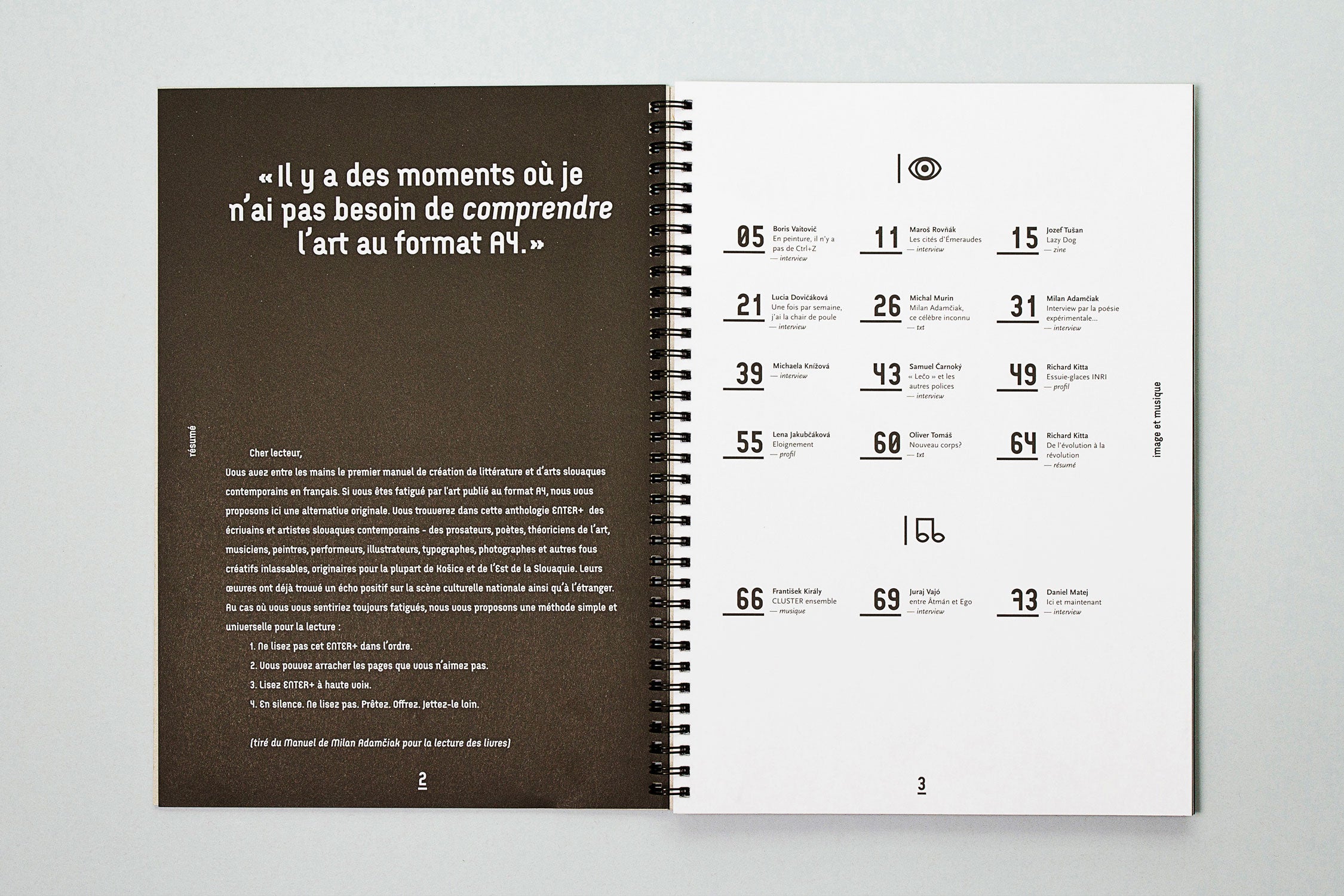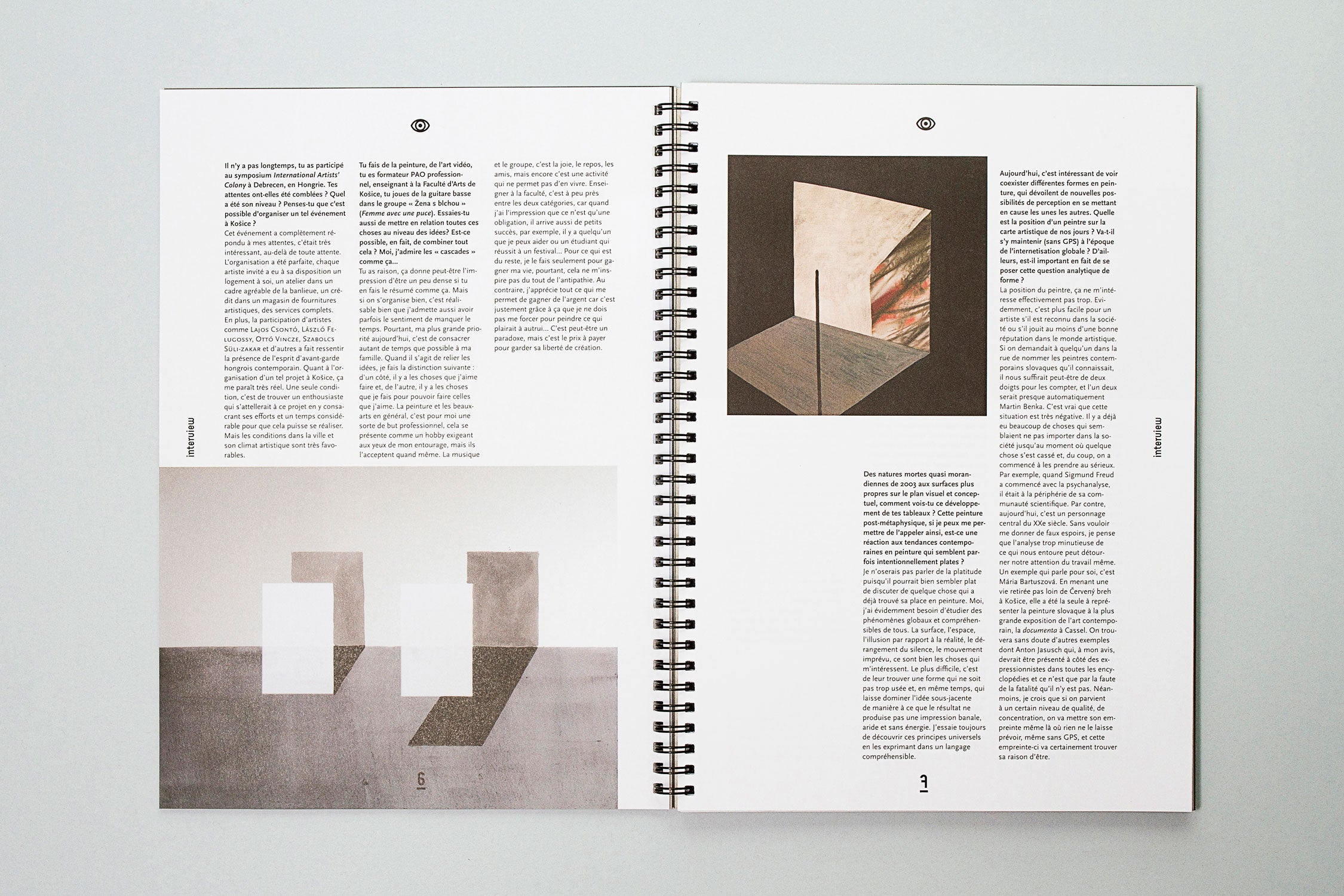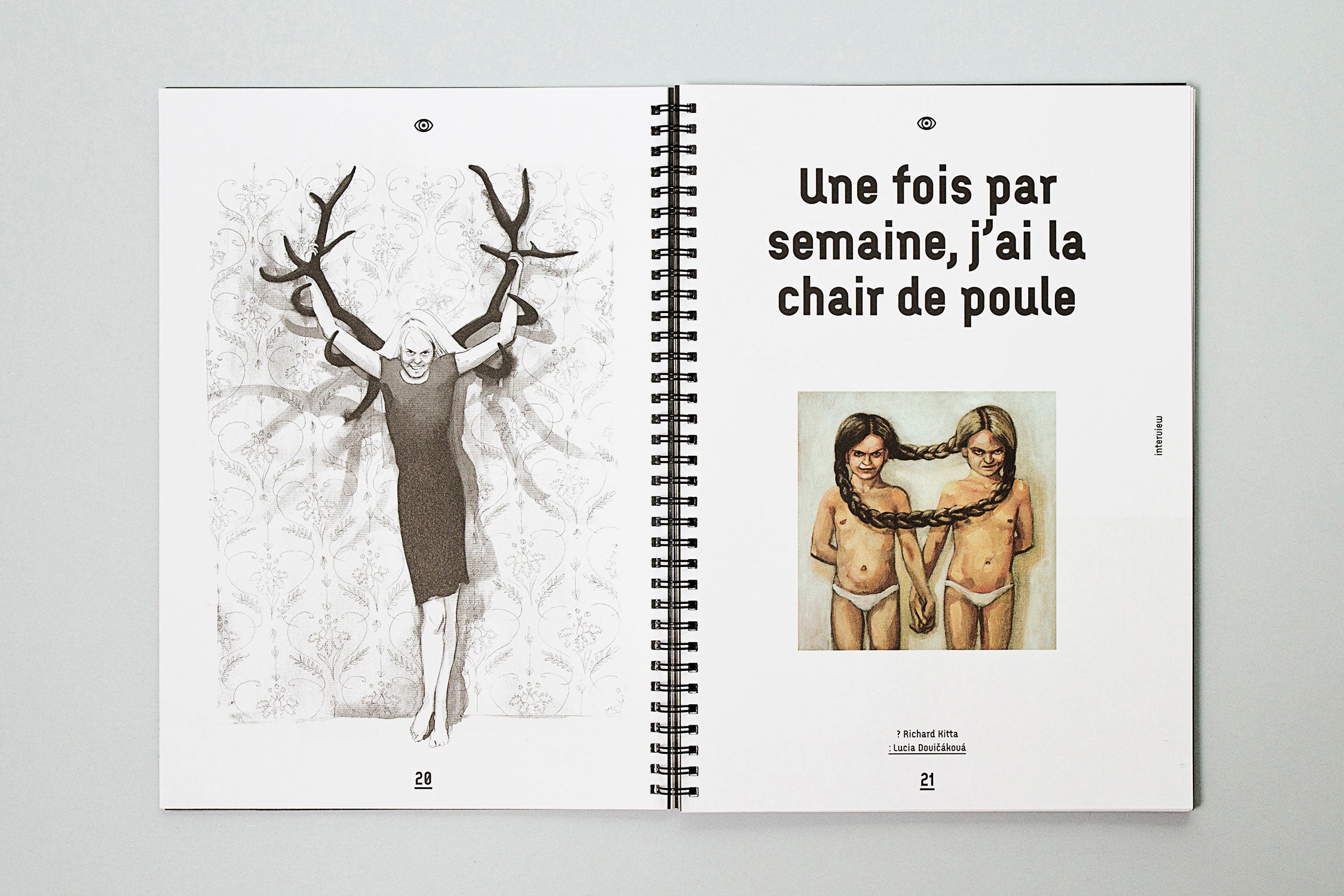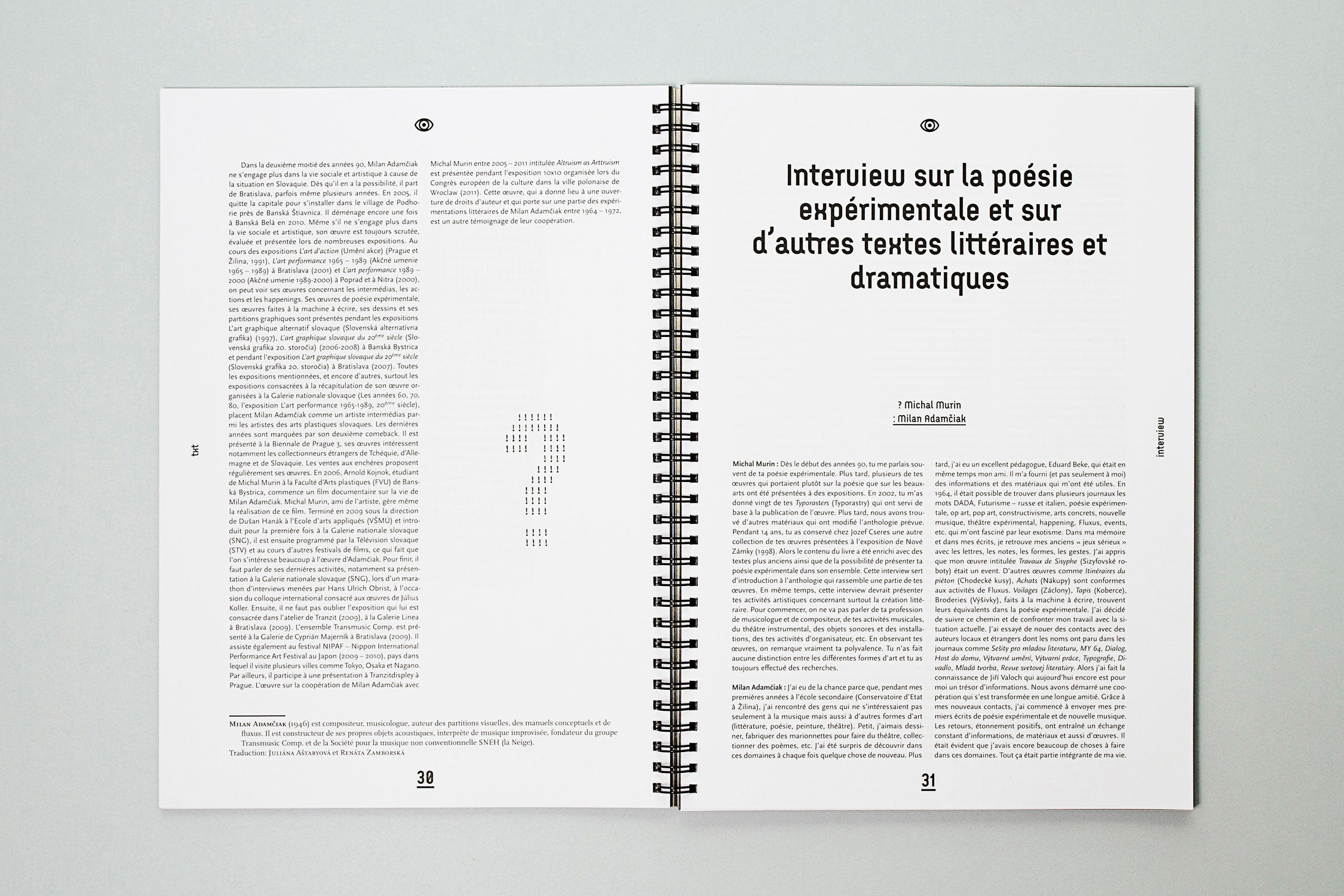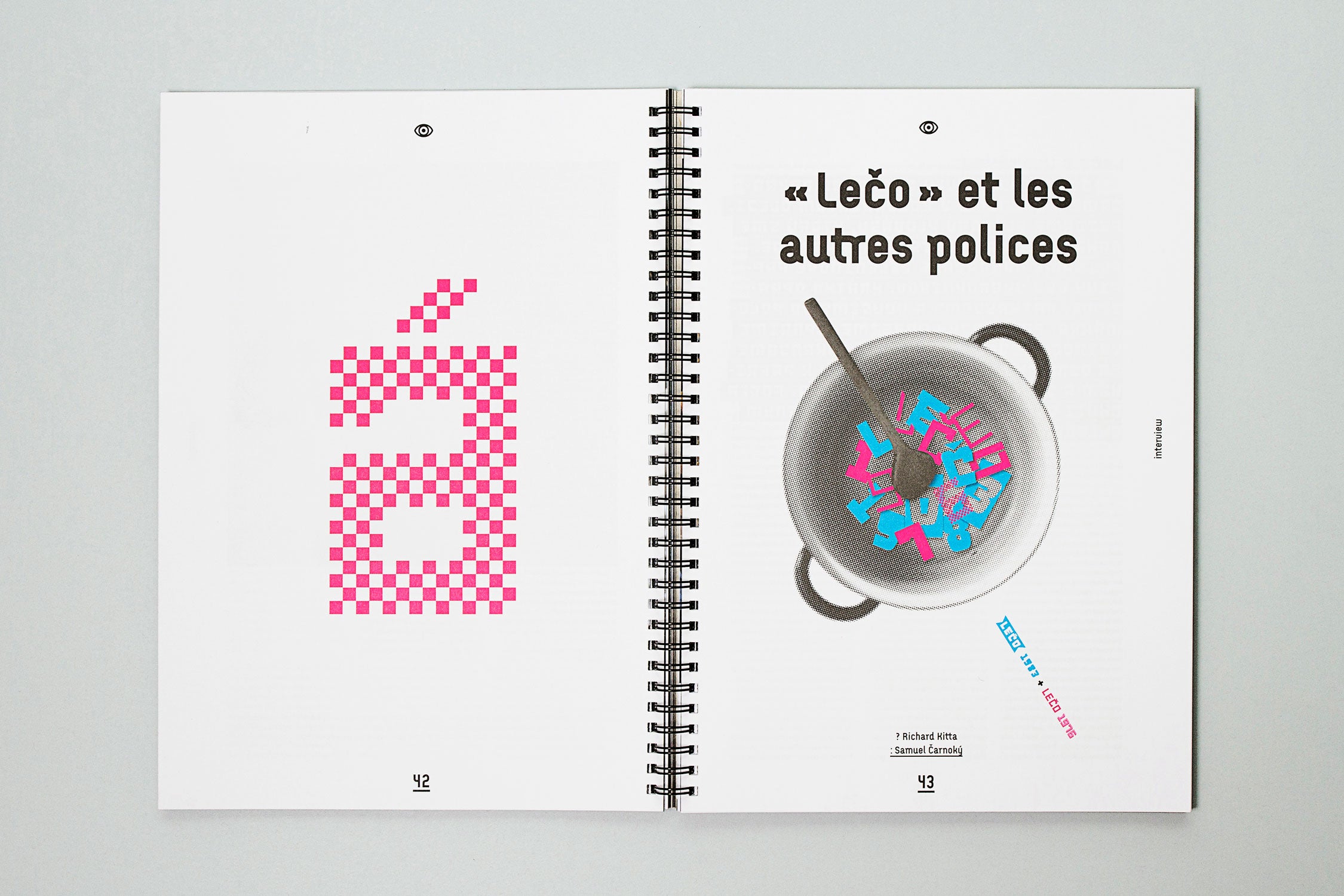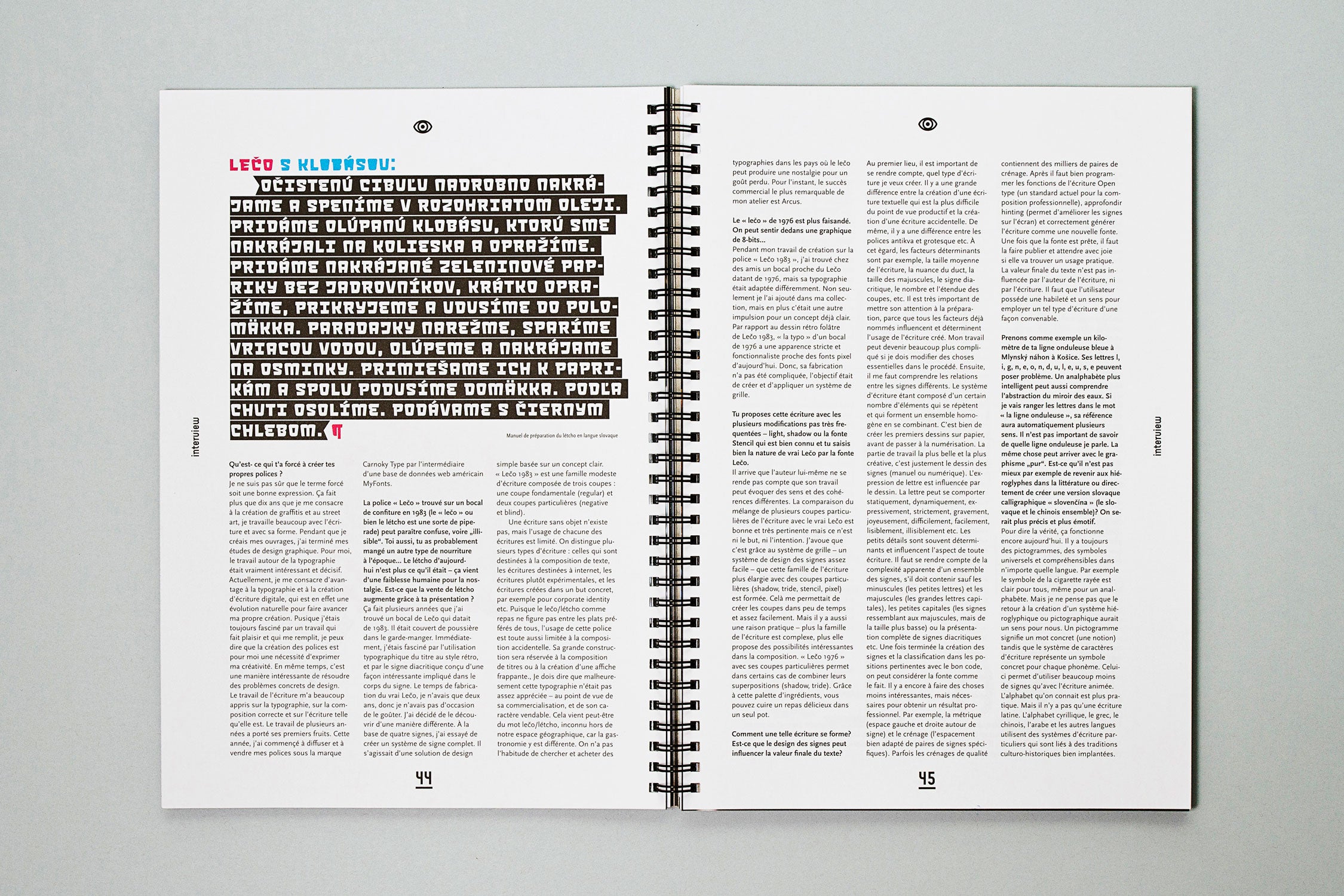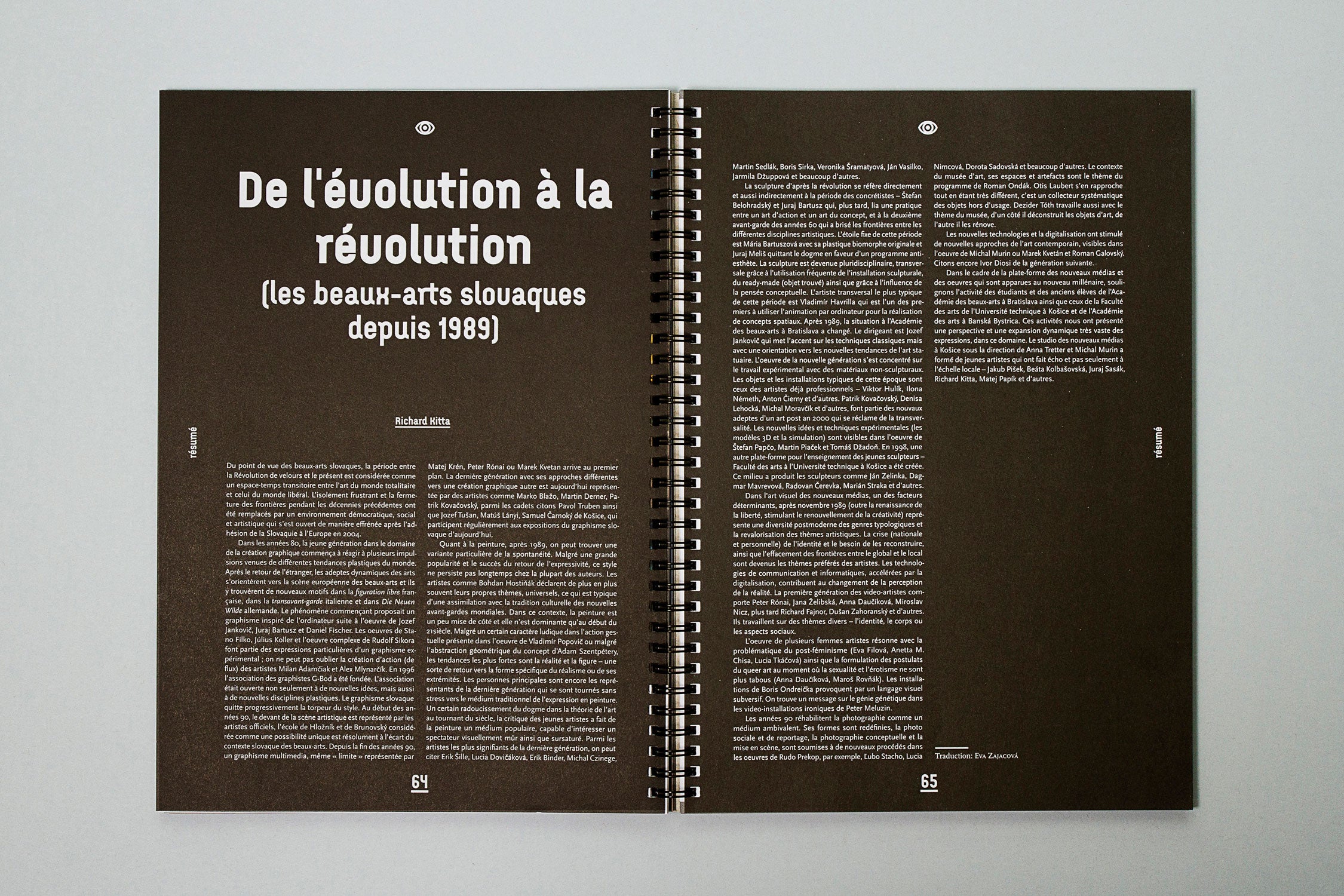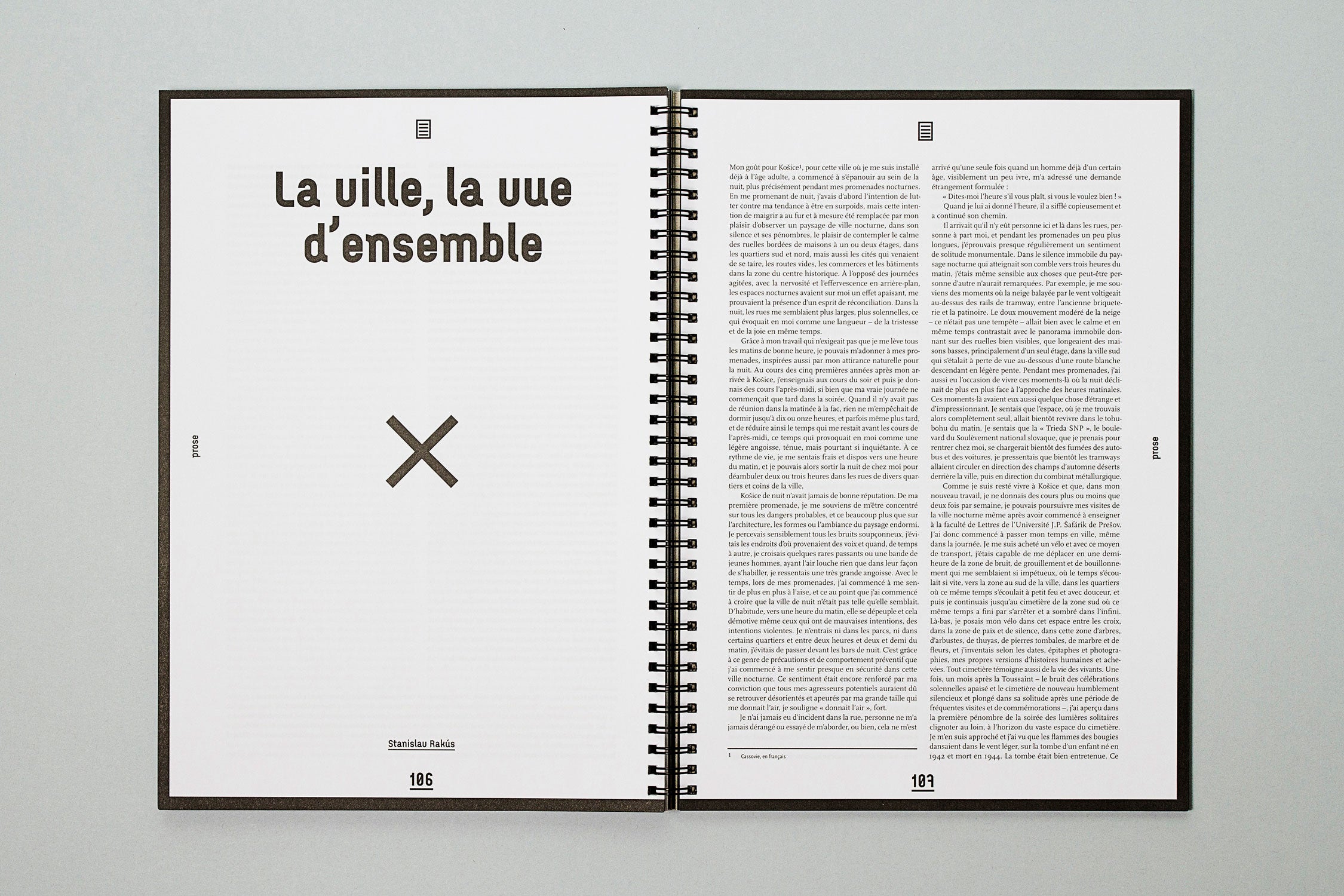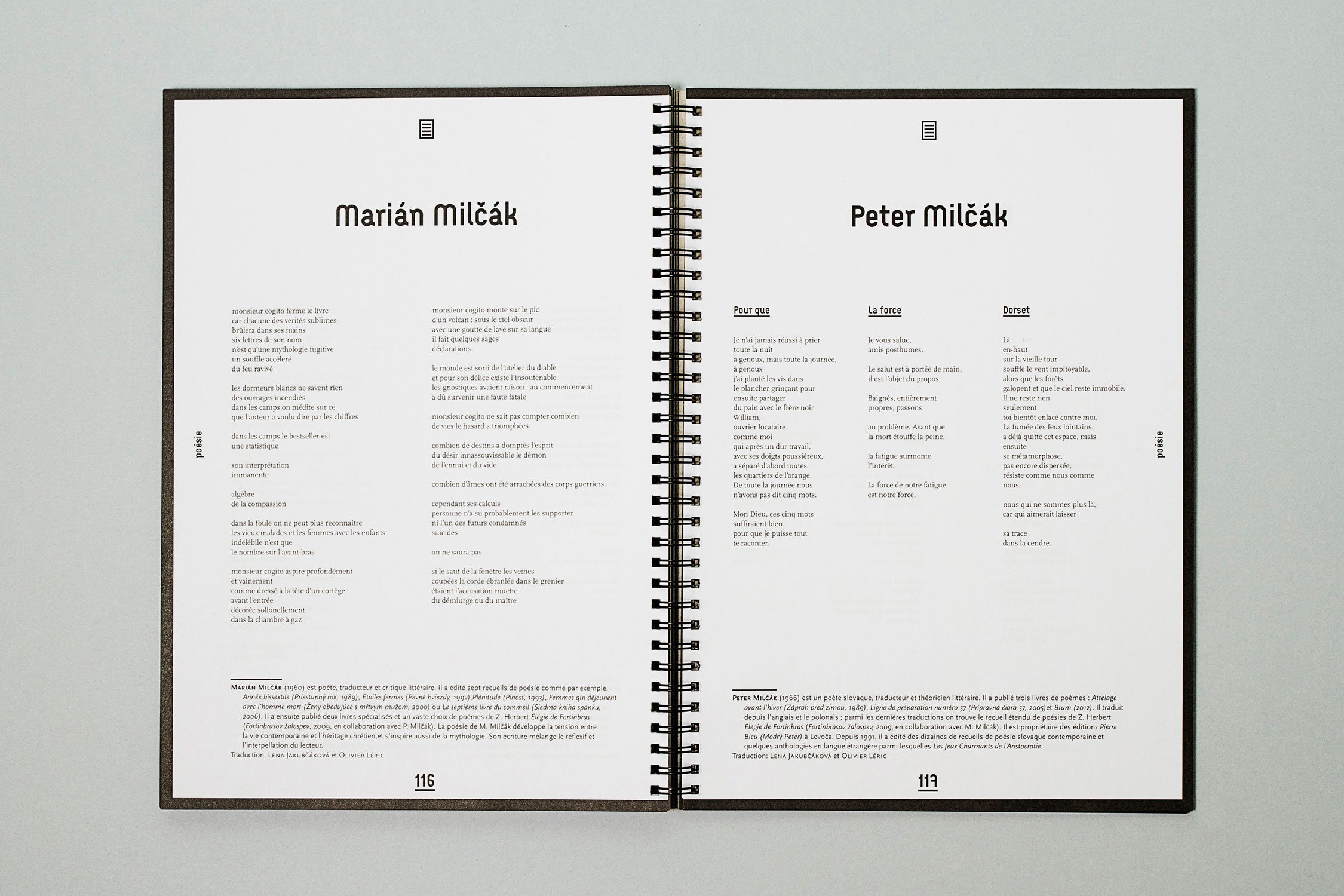
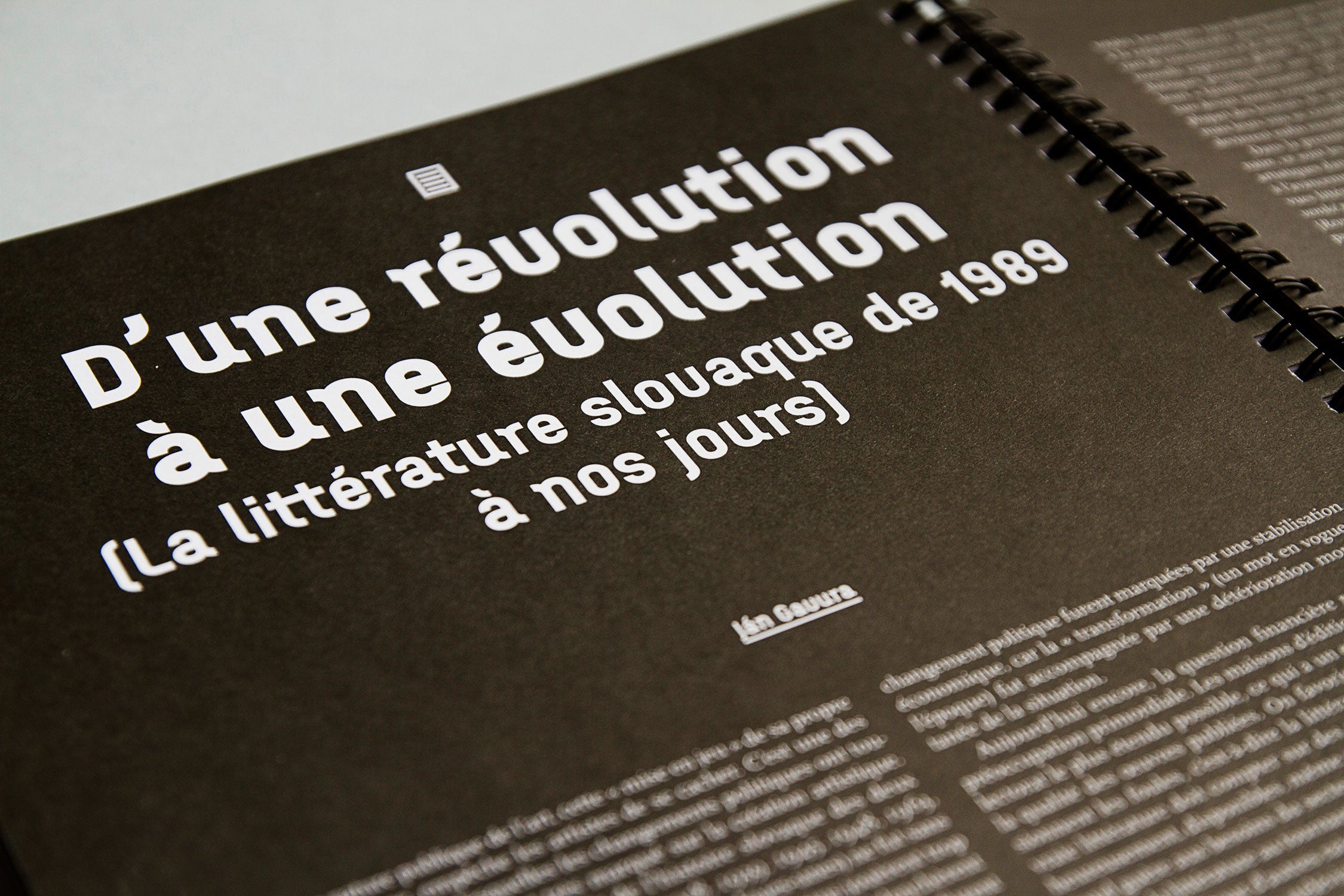
ENTER magazine focuses on current local and global art and literature. The layout concept and graphic design was created in cooperation with Martin Groch and had remained in the same form for quite some time. It follows the design of previous issues, from which it took its format and the type of spiral binding. The layout and typography were completely changed. The texts are made up according to the type of articles (interviews, articles, literary pieces, etc). The clarity of layout is complemented by navigation and infographics at the margins. The bold headlines in local display typeface, Argus, add authenticity to the design. The presented issue, Edition Spéciale, is a special issue aimed at French speaking readers.
ENTER magazine — Edition spéciale • Wire-O binding • 210 × 297 × 12 mm • 128 pages • typefaces: Arcus / Scala & Scala Sans • layout: Martin Groch & Samuel Čarnoký • published by: Dive Buki, Košice 2012 • photo credits: Michaela Eliáš • design: © Samuel Čarnoký (2012)